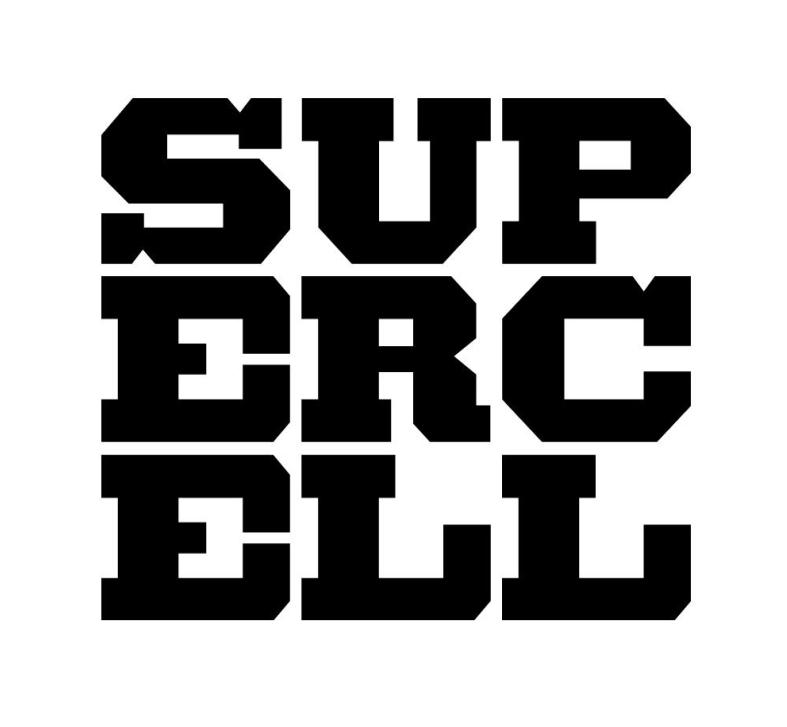
Supercell Logo Font
Fonts in UseSupercell is a Finnish mobile game developer known for creating popular games such as Clash of Clans, Clash Royale, Brawl Stars, and Hay Day.
The Supercell logo showcases a wordmark styled in Acropolis Black, a slab serif typeface from The Proteus Project by Hoefler & Co, inspired by 19th-century designs. More information about the typeface can be found here.